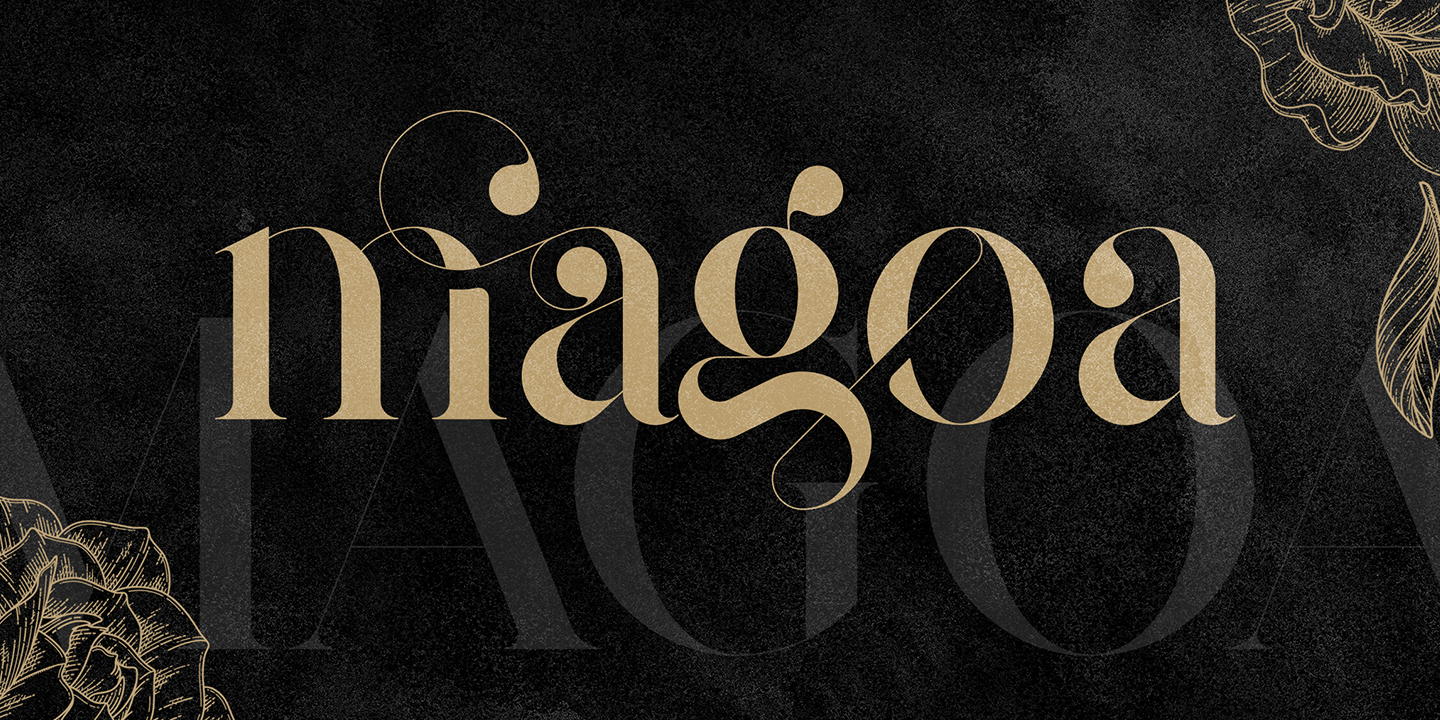
Magoa Font is perfect for emotional wellness center branding, therapeutic healing communications, grief counseling materials, emotional support services, healing retreat promotions, and compassionate mental health campaigns. Its profound character makes it ideal for therapists, grief counselors, emotional healing practitioners, mental health advocates, and any application requiring deeply empathetic typography that conveys emotional depth, healing sensitivity, and the transformative journey through pain toward renewal and emotional recovery.
Magoa Font is exciting because it captures the profound depth and transformative power of emotional healing through thoughtfully crafted letterforms that acknowledge the reality of pain while pointing toward hope and renewal. Its emotionally resonant proportions and healing-inspired details reflect the courage required to face difficult emotions and the wisdom that emerges from processing grief and pain authentically, making it perfect for organizations supporting emotional healing journeys. The font's healing character transforms communications into expressions of compassionate understanding.
Magoa Font family includes emotionally-aware weight variations typically featuring Light, Regular, Medium, and Bold options with sensitive styling that maintains therapeutic authenticity. The family often incorporates healing symbols, compassionate ornaments, and emotional wellness elements designed for therapeutic applications, providing designers with comprehensive tools for creating authentic, emotional healing-focused typographic compositions.
When selecting emotional healing typography solutions, Magoa Font Free Download represents an exceptional choice for therapeutic and wellness projects. This profound typeface brings instant emotional authenticity to any design, making it invaluable for mental health professionals, healing centers, and emotional wellness organizations supporting people through difficult times. Whether you're developing therapeutic practice branding, creating emotional wellness materials, or designing grief support communications, Magoa Font provides the emotional depth and healing sensitivity essential for compassionate communication in today's mental health-focused wellness marketplace.